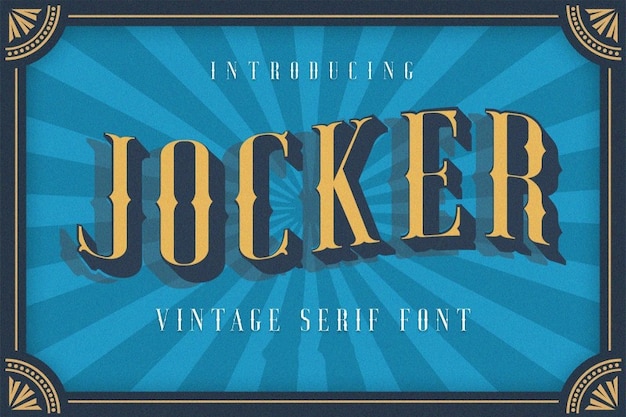
Jocker
Jocker Font
Jocker font is a vintage treasure trove, where decorative elements intertwine with classic charm to create a timeless masterpiece. Each character feels like a glimpse into the past, turning your text into a nostalgic work of art. Ideal for projects that need to evoke the elegance of bygone eras. Jocker effortlessly blends vintage aesthetics with decorative flair, making your words an expression of classic beauty that leaves a lasting impression of timeless sophistication.